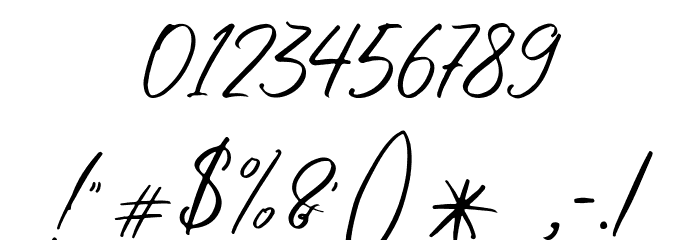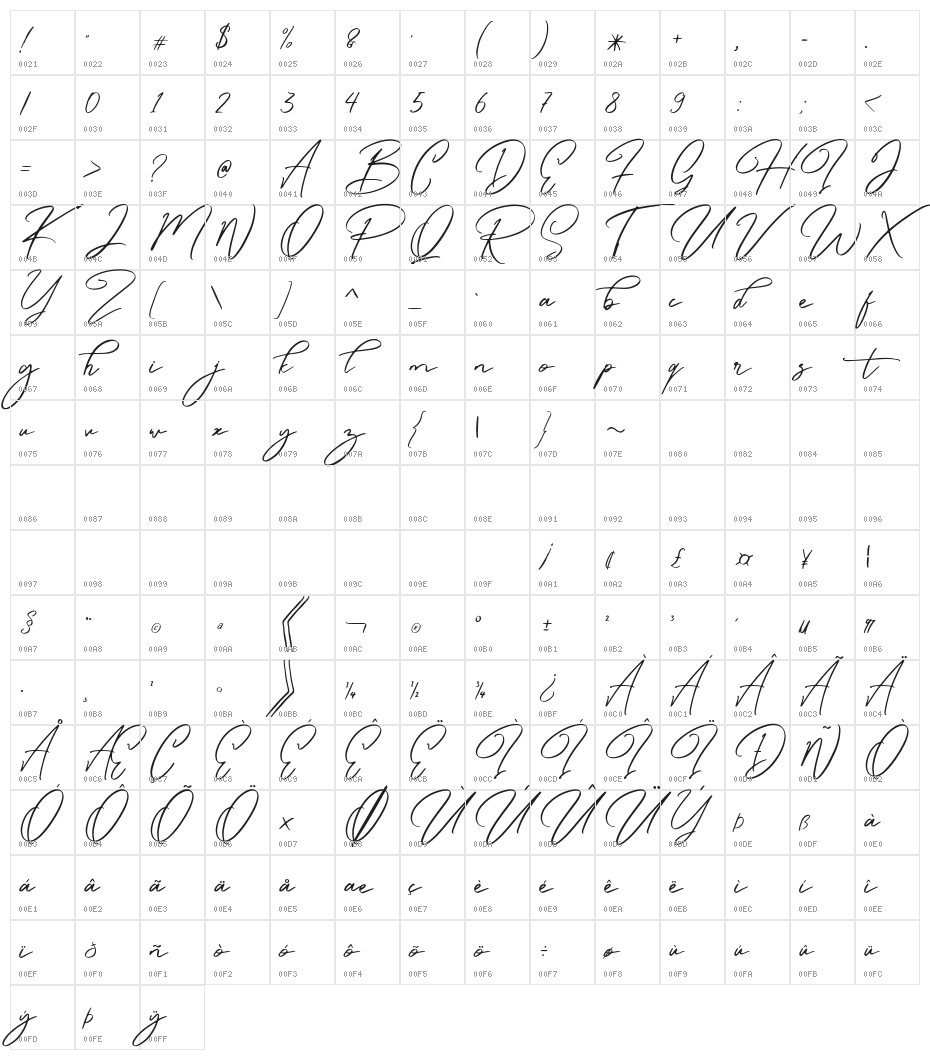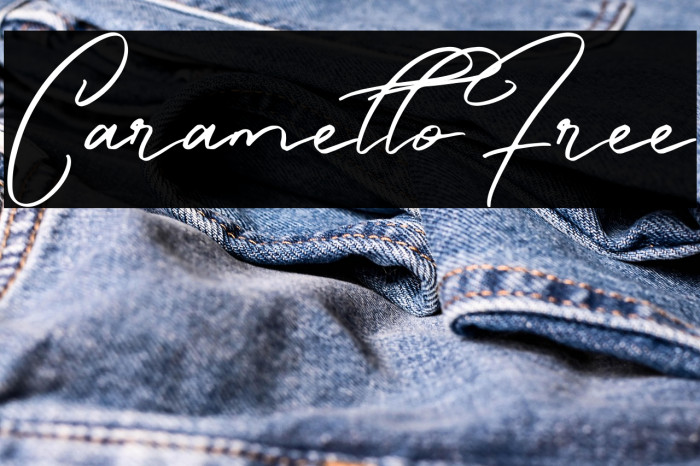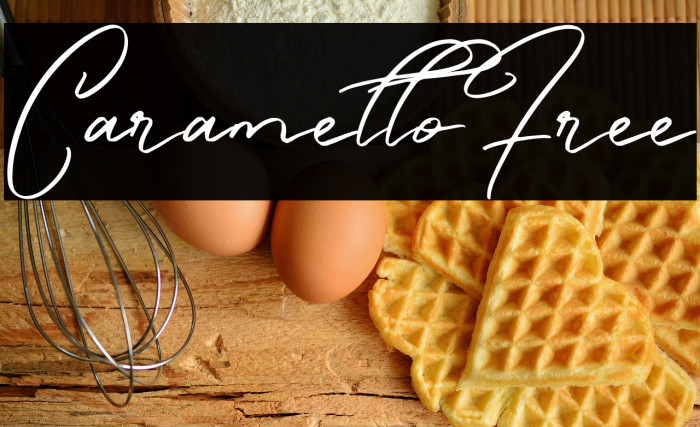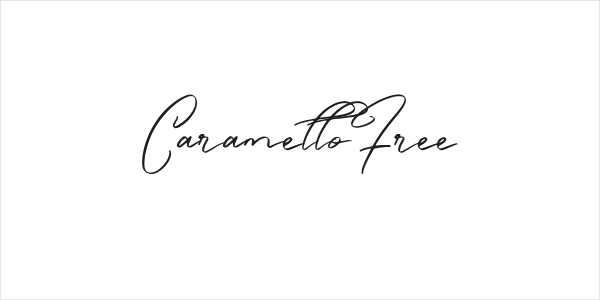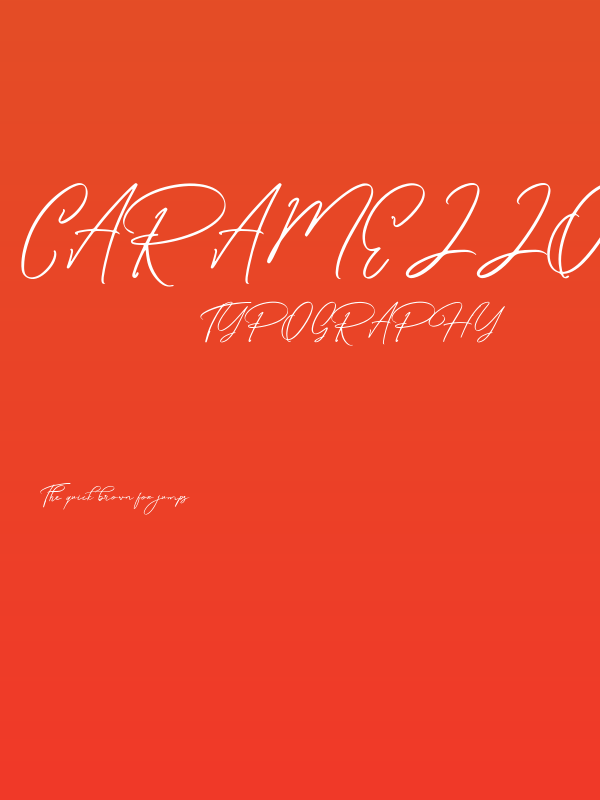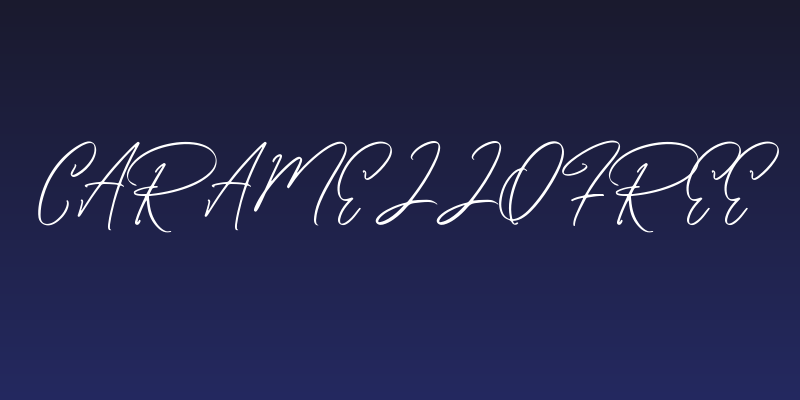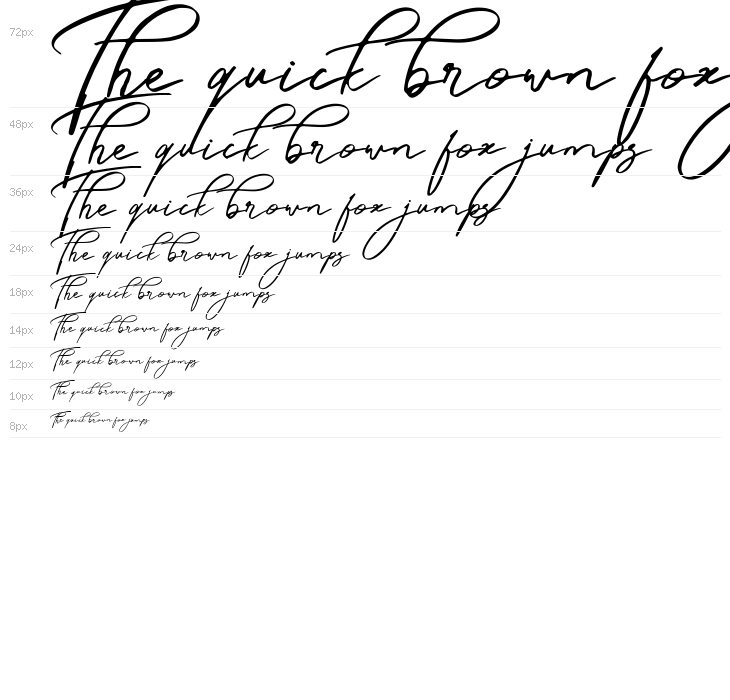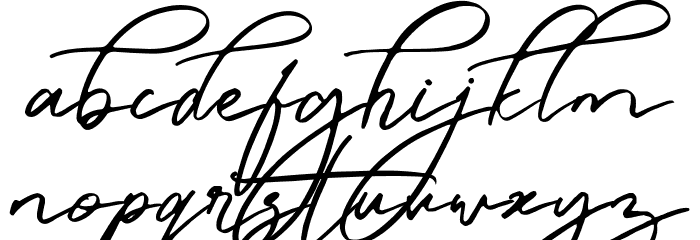
CaramelloFree Font
CaramelloFree Description
This elegant script font features a fluid and graceful design, reminiscent of classic calligraphy. The uppercase letters are characterized by their sweeping curves and delicate loops, creating a sense of movement and sophistication. The lowercase letters maintain a consistent flow, with some characters extending below the baseline, adding to the font's ornate appearance. The numerals are styled to match the overall aesthetic, with a slight slant and refined curves. Special characters are thoughtfully integrated, ensuring versatility in various design contexts. This font is perfect for projects that require a touch of elegance and class.
| Proposed Projects | Ideal for wedding invitations, elegant branding, luxury packaging, and personal stationery. |